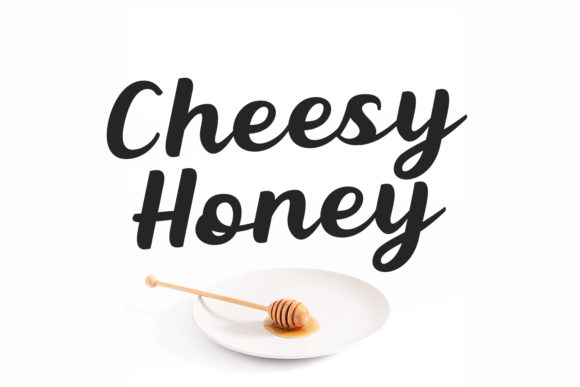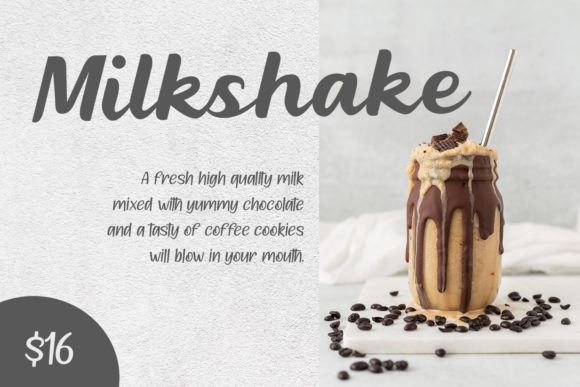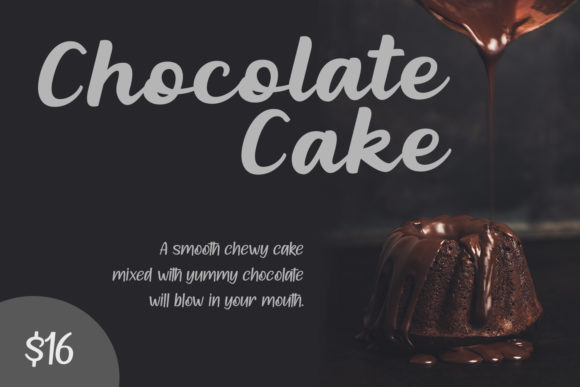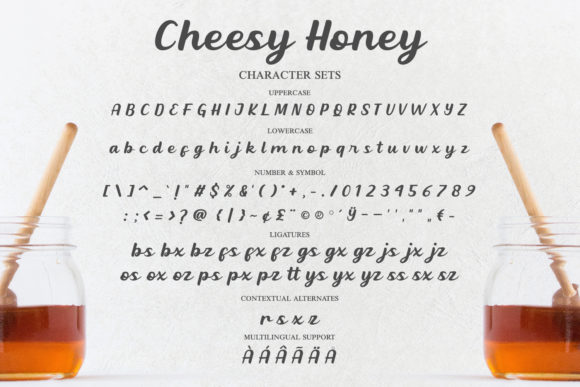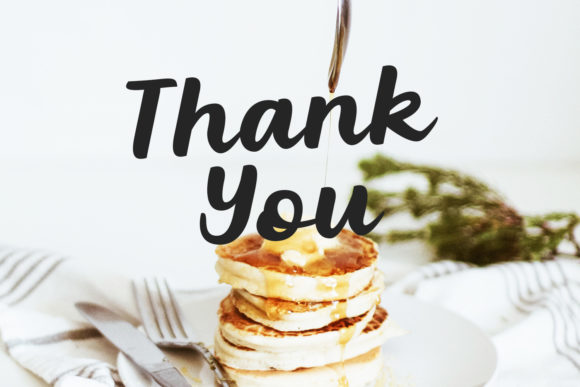
About Cheesy Honey Font
Cheesy Honey is a cute handwritten font, carefully handcrafted to become a true favorite. Its casual charm makes it appear wonderfully down-to-earth, readable and, ultimately, incredibly versatile. Cheesy Honey will look outstanding in any context, whether it’s being used on busy backgrounds or as a standalone headline!